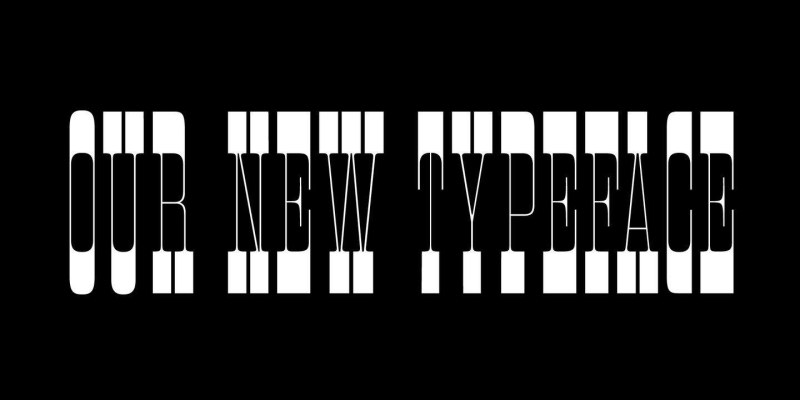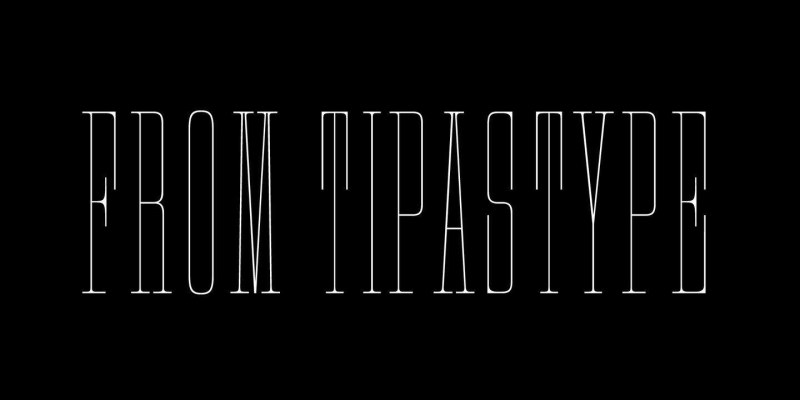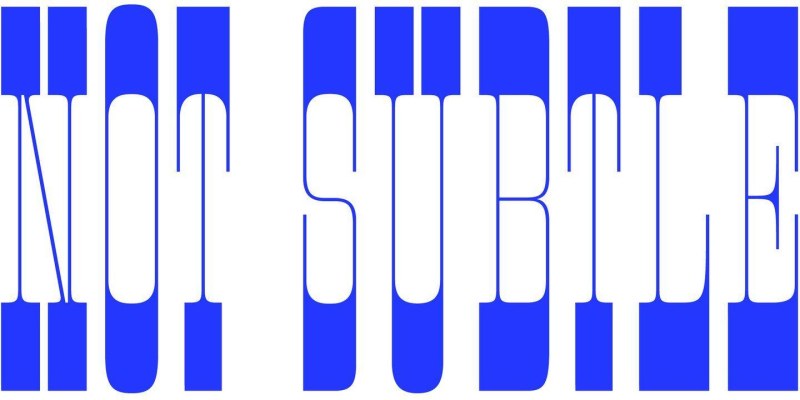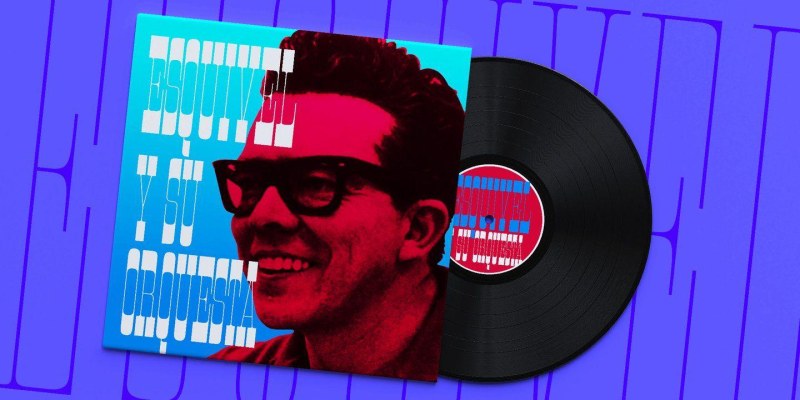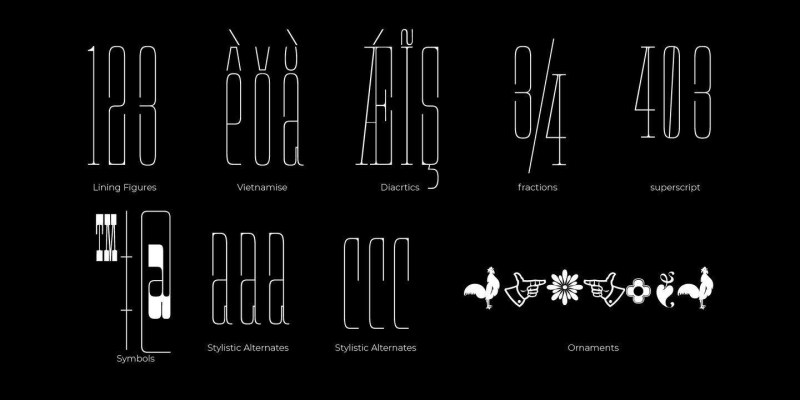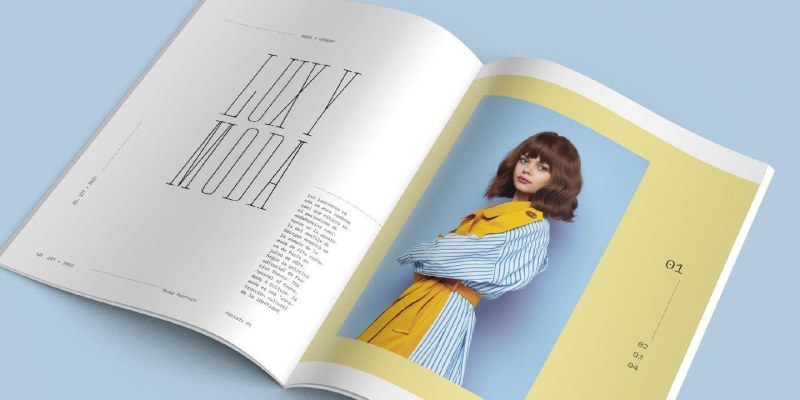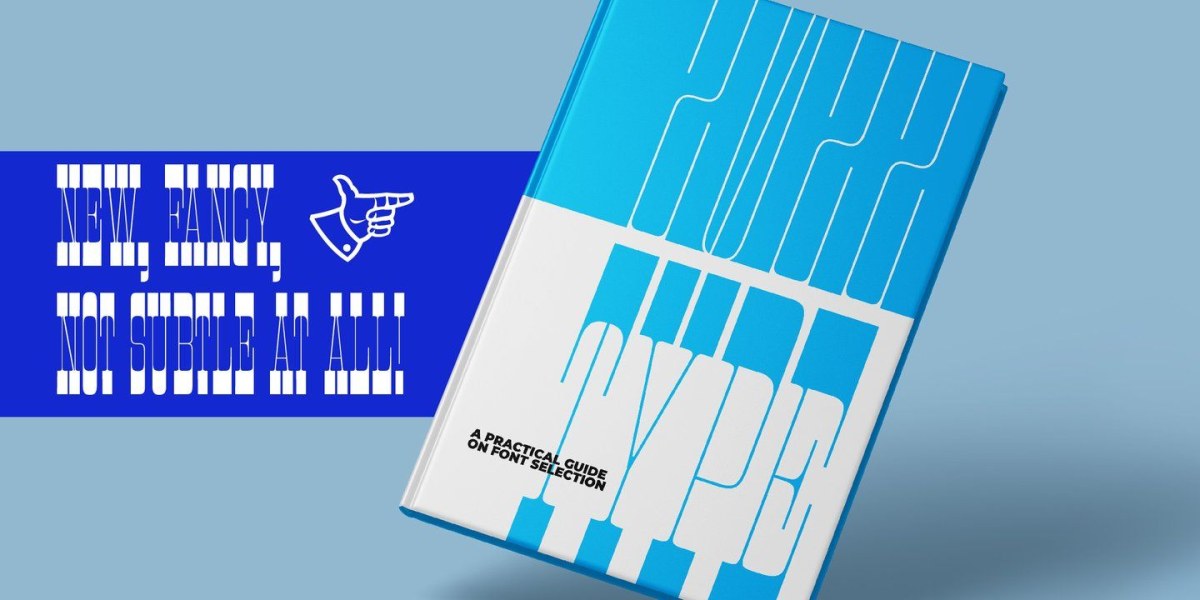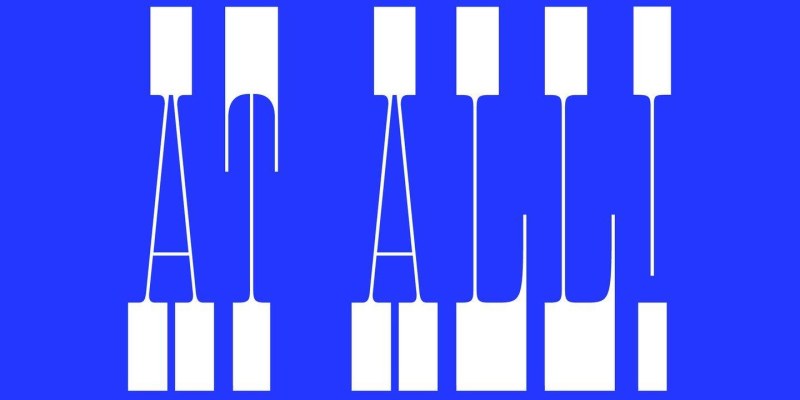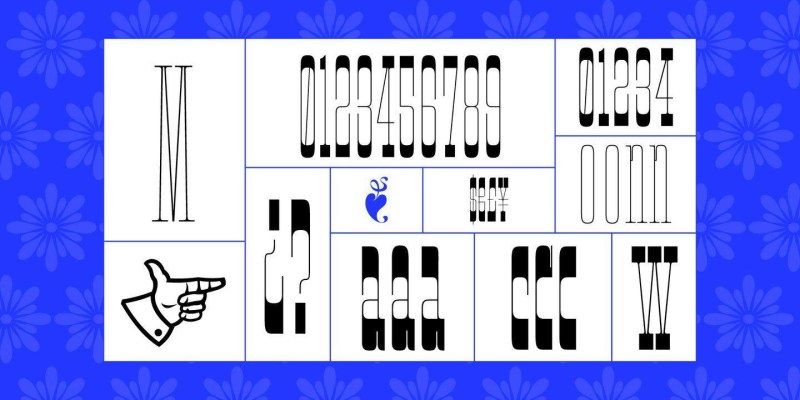
Extra C Font
It is an Extra Condensed, Extra Light, Extra experimental and Extra display font. Extra C is a fun font that doesn’t take itself too seriously. Ideal for those who need a font with great character and personality but at the same time a delicate touch in their graphic pieces. EXTRA C has 4 static weights in addition to a variable version.